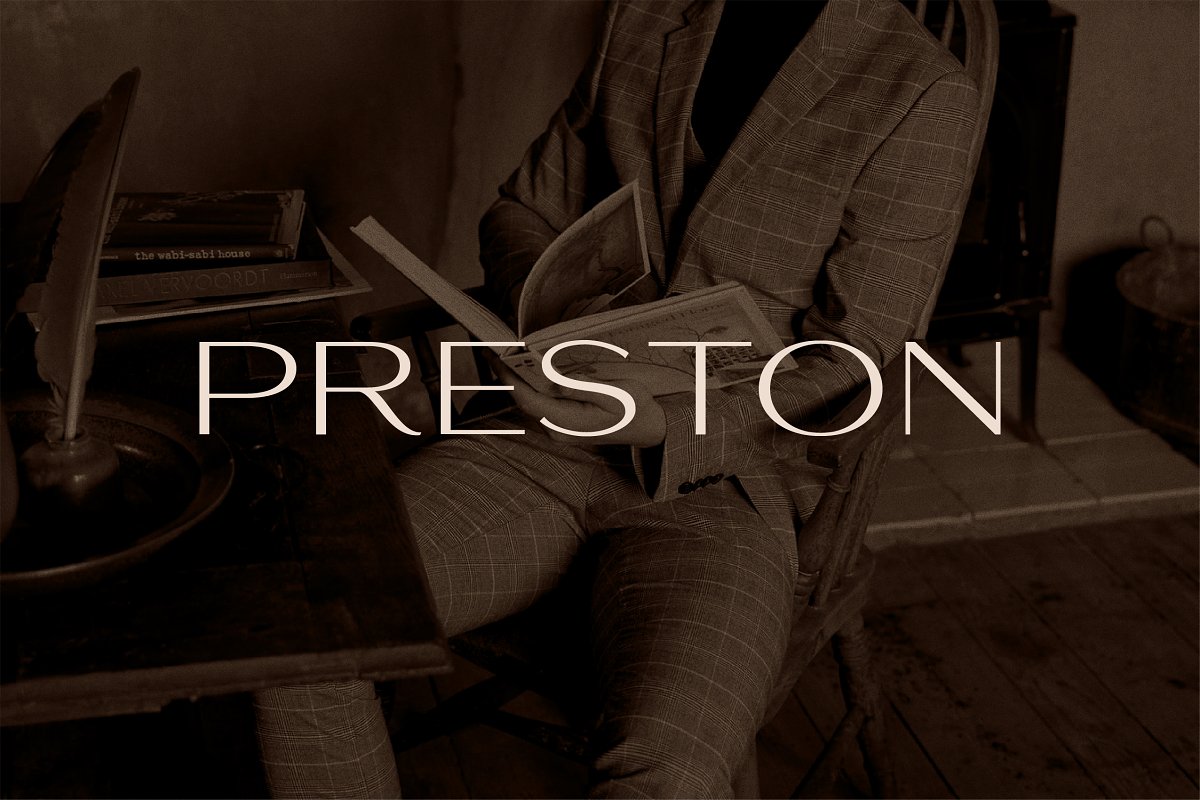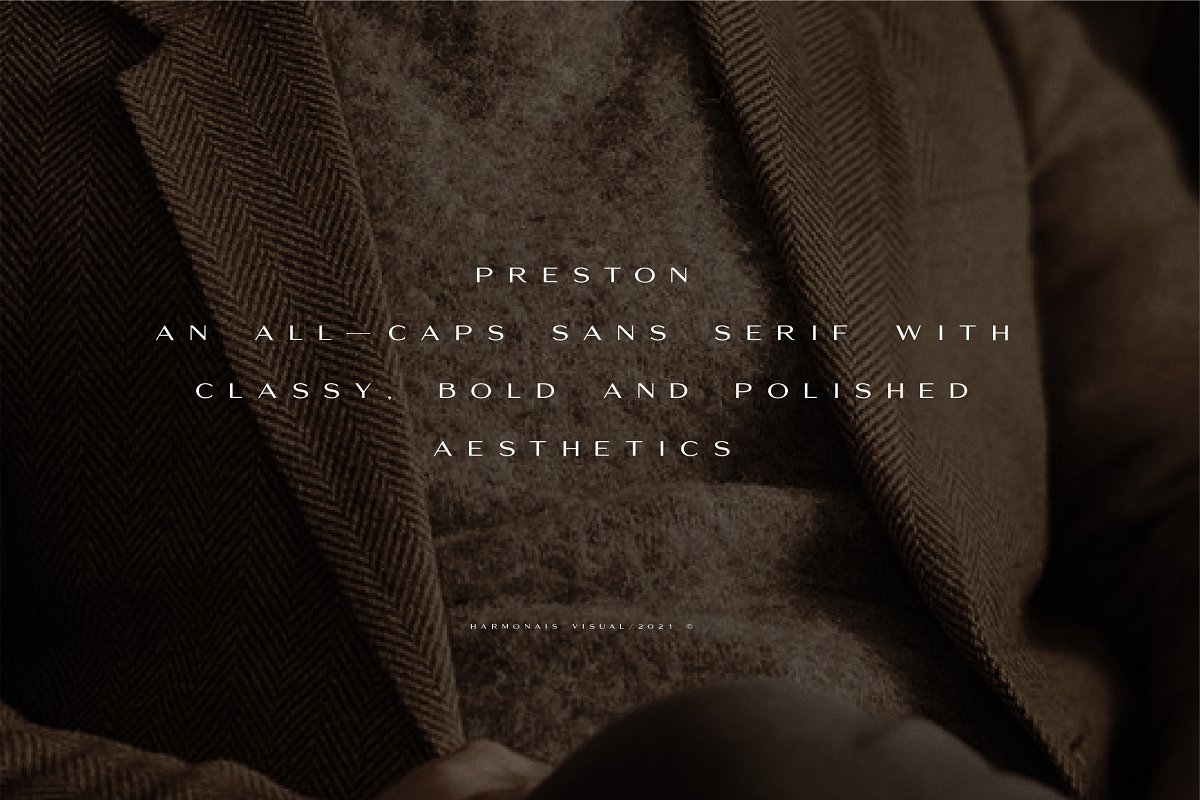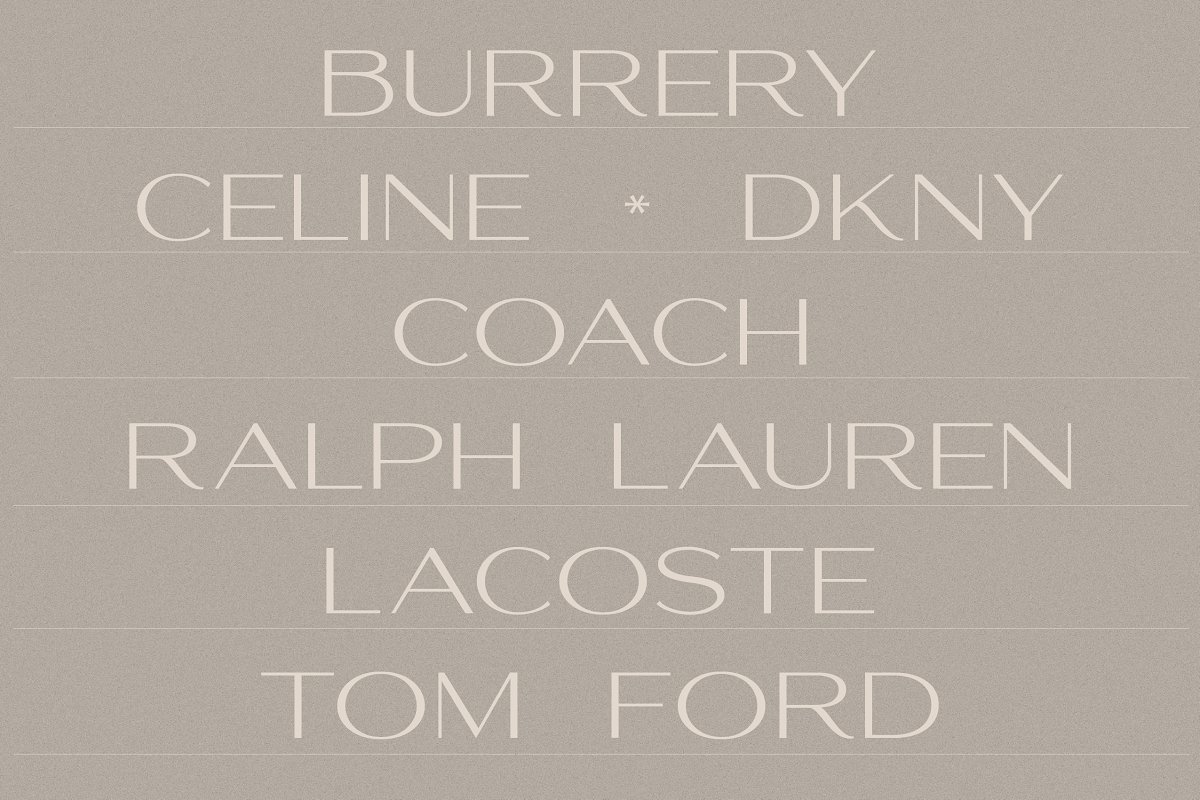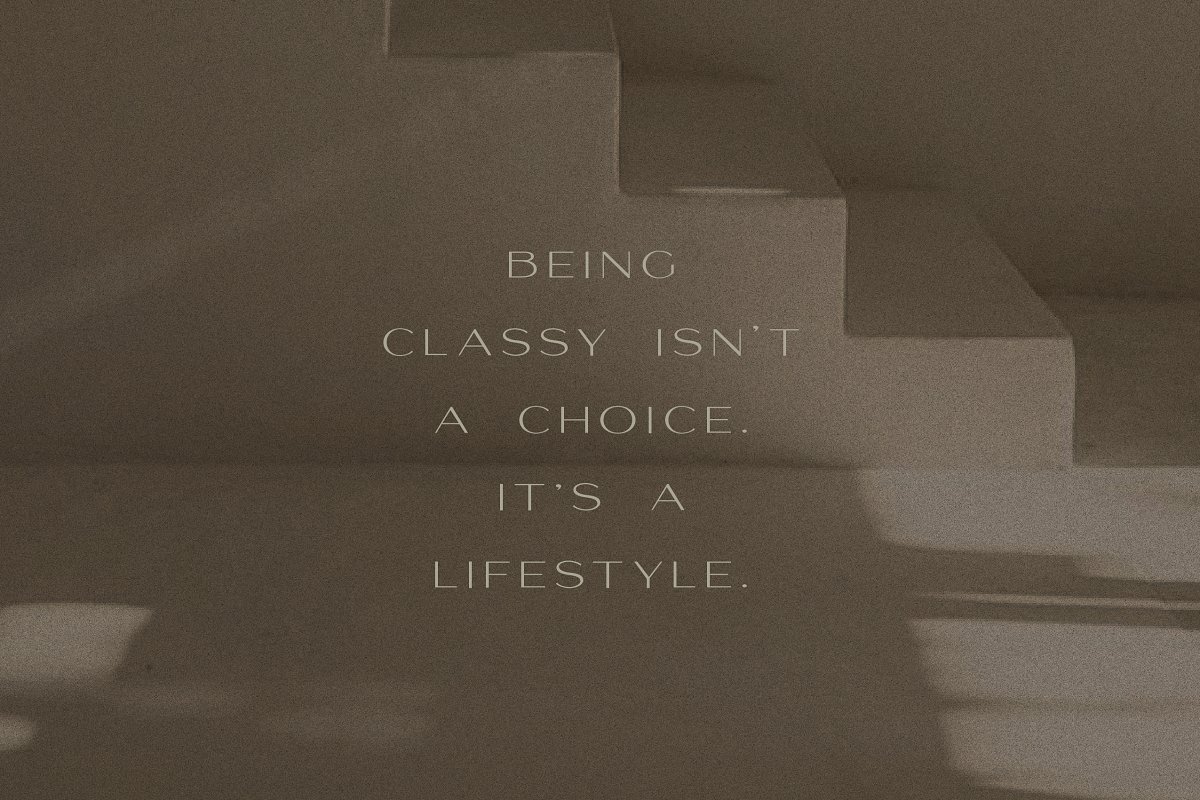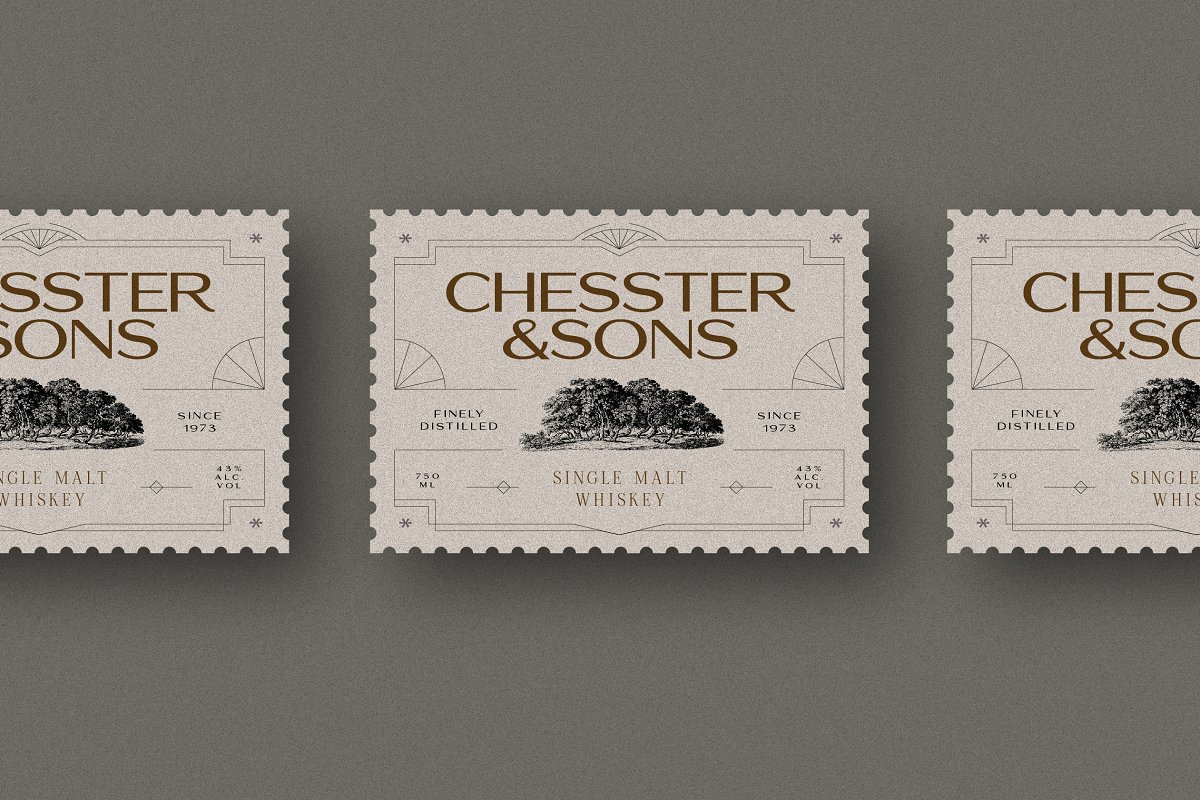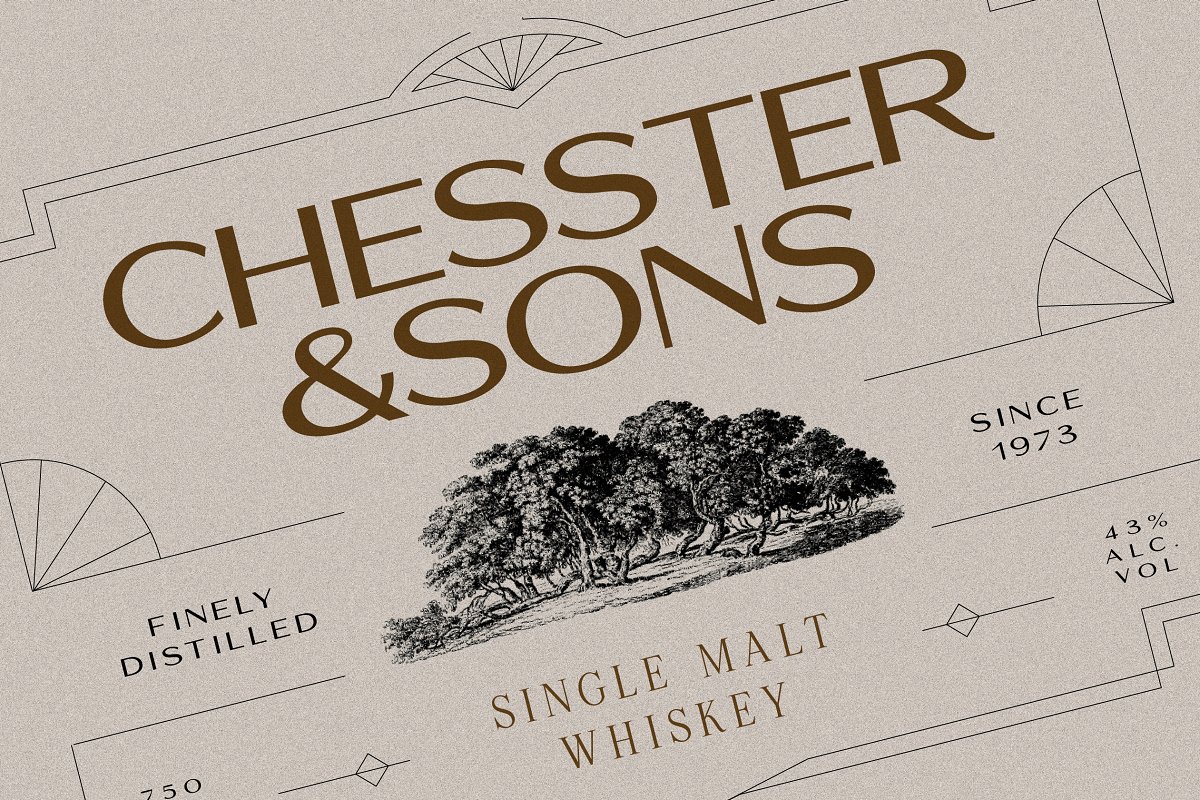
About the Preston Classy All caps Sans
Preston – an classy all-caps sans serif, Specially designed for simple, bold, polished projects, The font is perfectly suitable for creating elegant, bold design such as logo, packaging, social media, and more, The font features standard ligatures, A SUMMARY OF WHAT’S INCLUDED:HV Preston Font (, ttf, , otf & , woff)HV PRESTON FEATURE:Ligatures All Europeans languagesSOFTWARE REQUIREMENTS:The regular fonts in the pack are widely supported by most software – To get the full functionality of the large selection of standard ligatures (custom connected letters) in the script font, any software that can read OpenType fonts will do